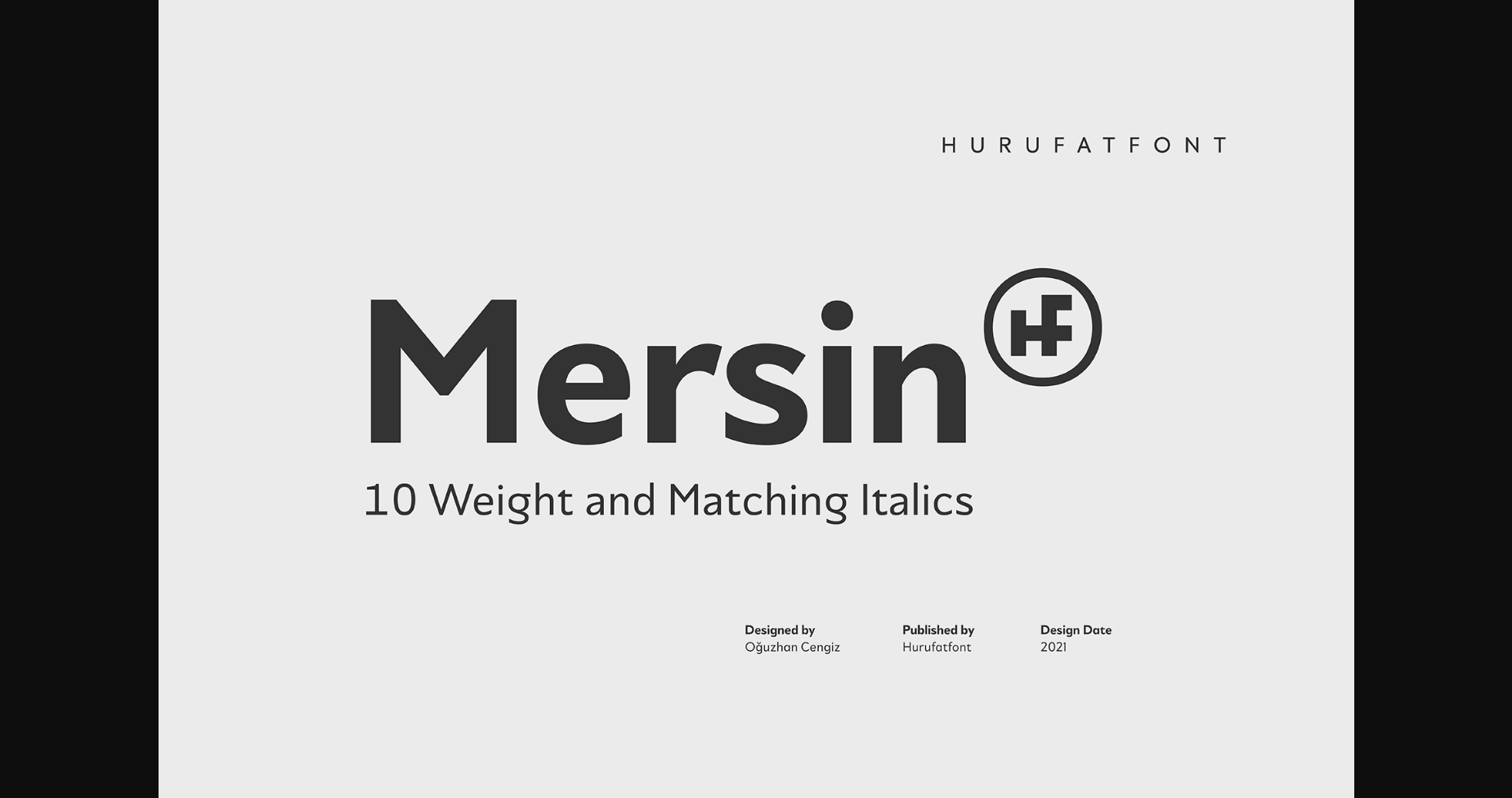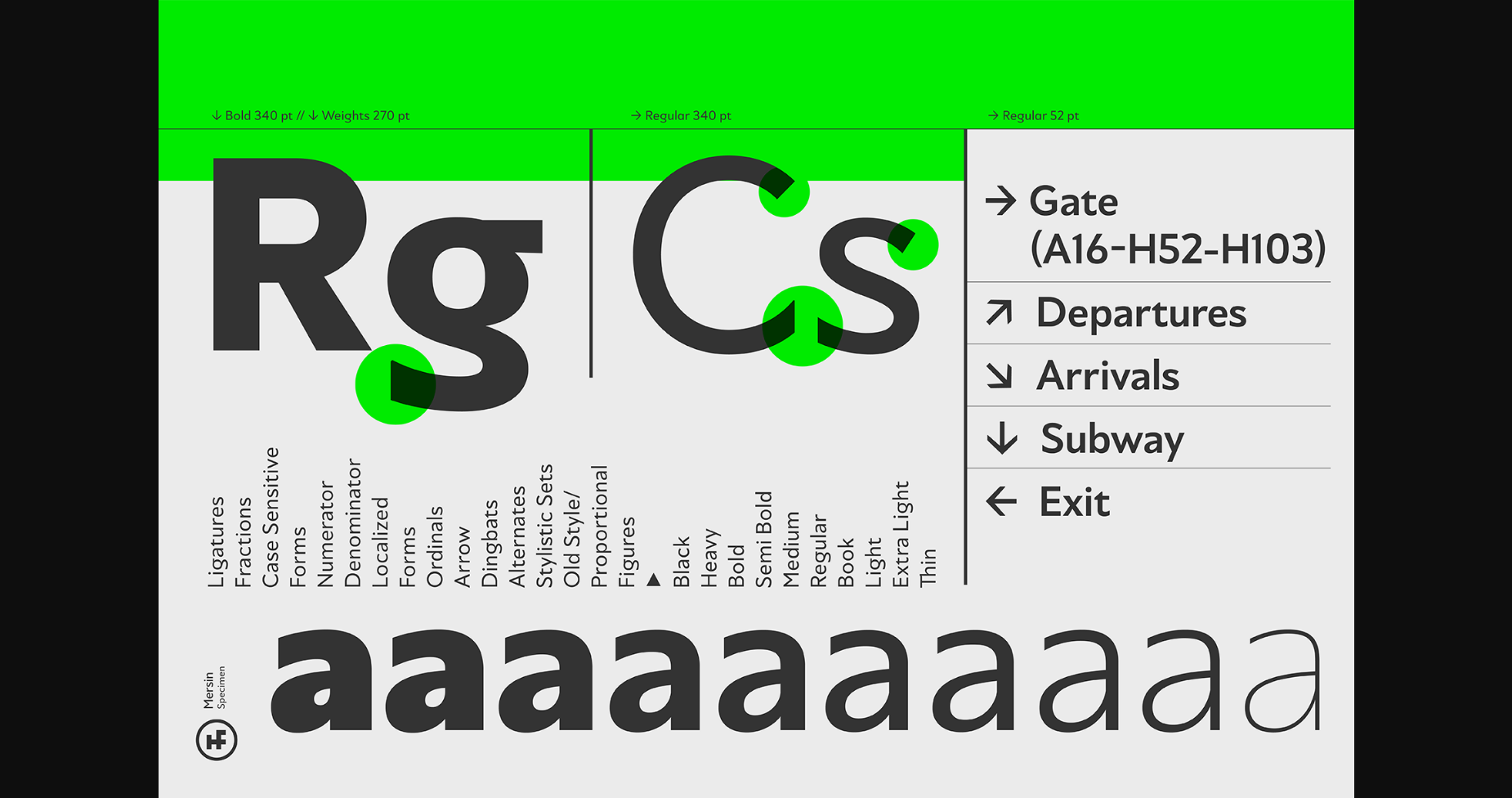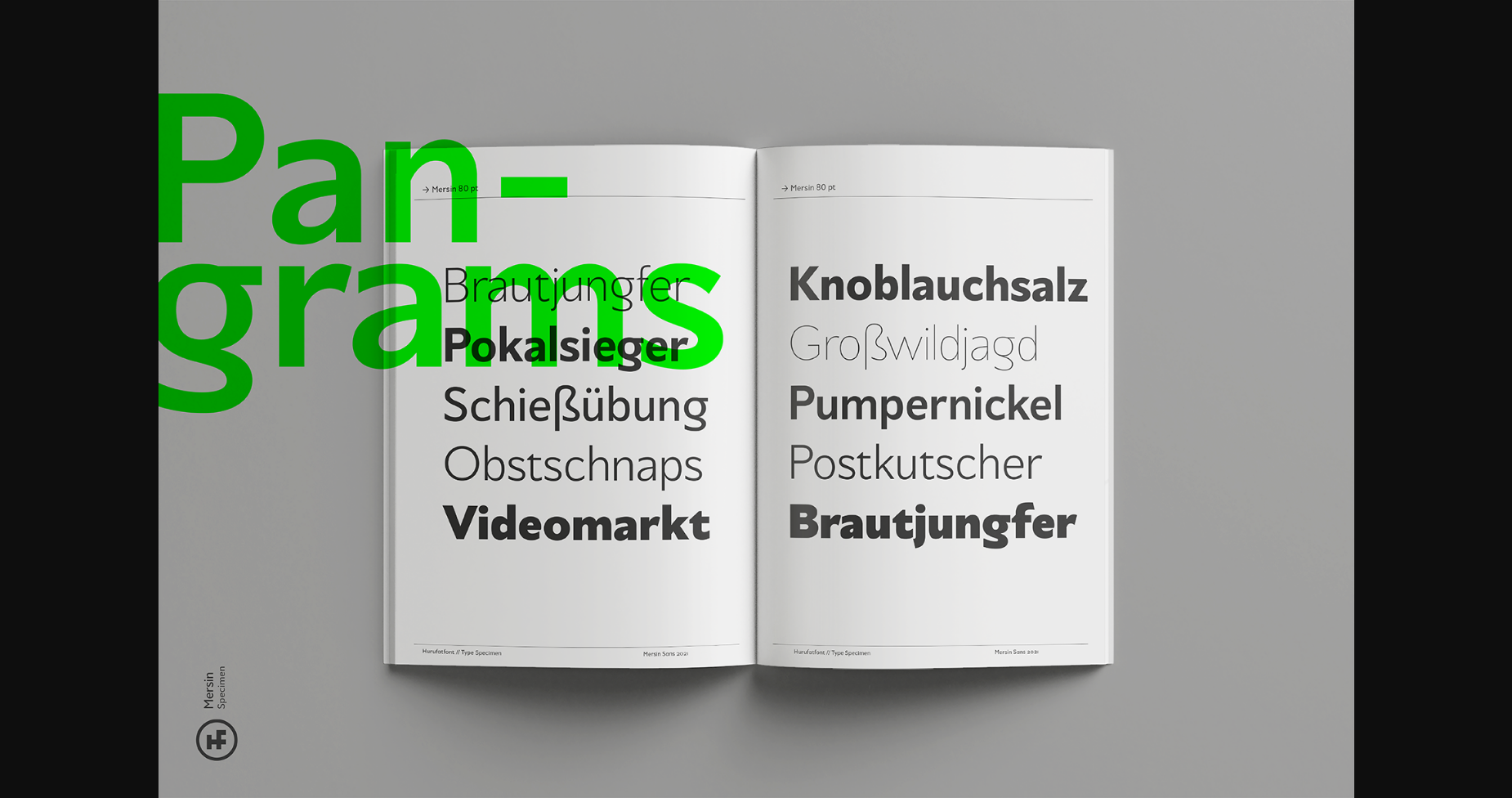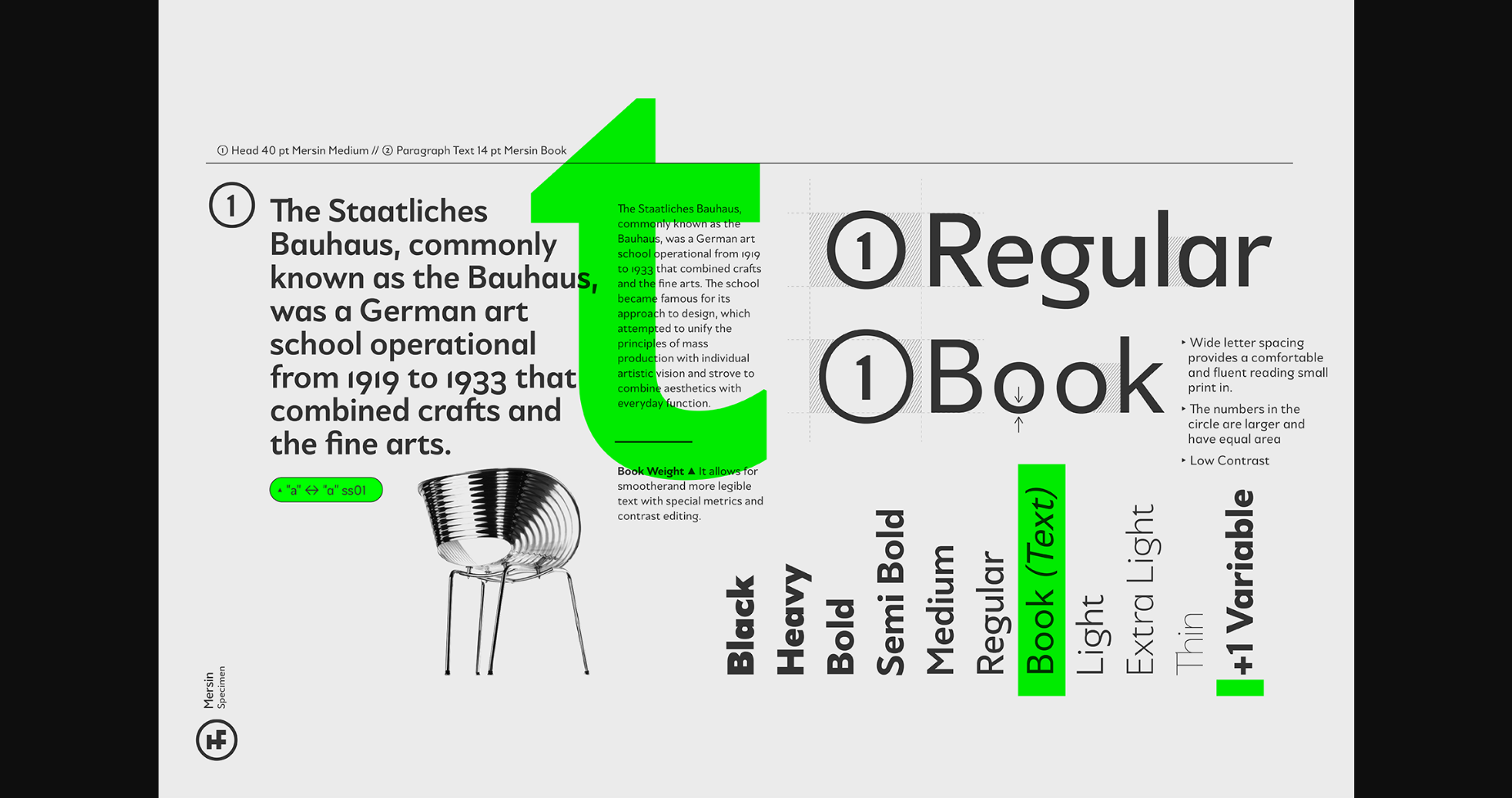
About Mersin Font
Mersin is a modern and cool sans serif font. It can easily be matched to an incredibly large set of projects, so add it to your creative ideas and notice how it makes them stand out!